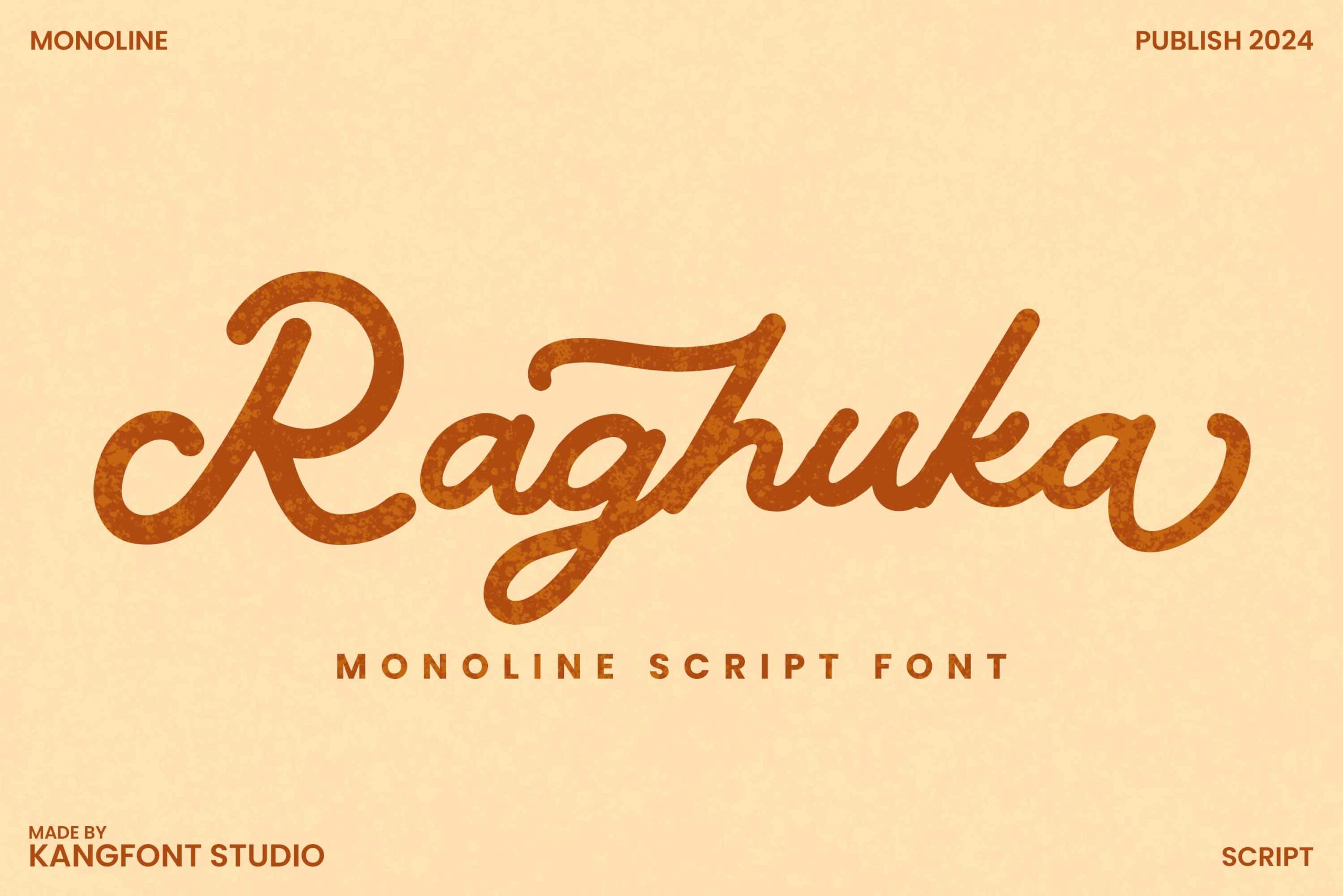
4. Raghuka – Monoline Script with a Personal Touch
Raghuka is a monoline script font that is soft and delicate. Its handwriting style adds warmth and a personal feel, making it great for designs that need a human touch like invitations, greeting cards, small business logos, or personal branding.
With consistent and elegant line work, Raghuka pairs beautifully with sans serif fonts to create balanced typography compositions.